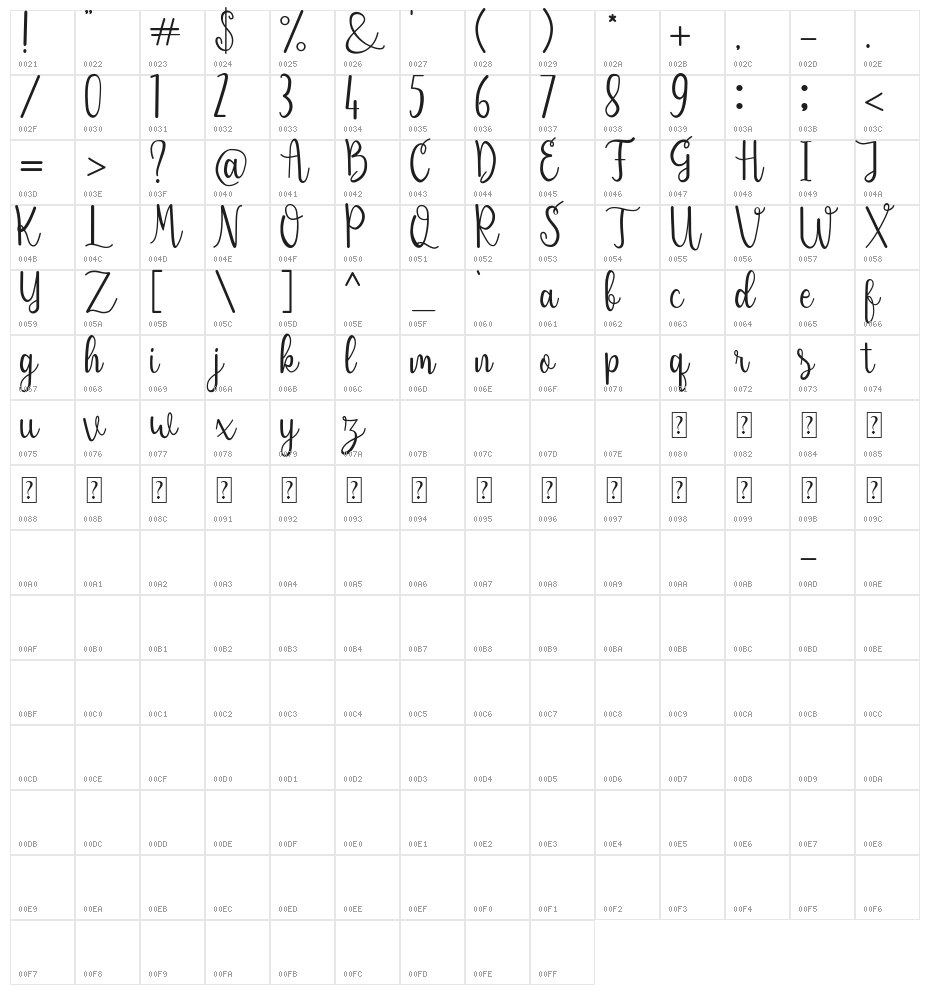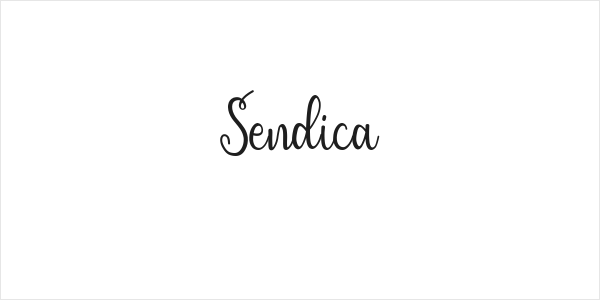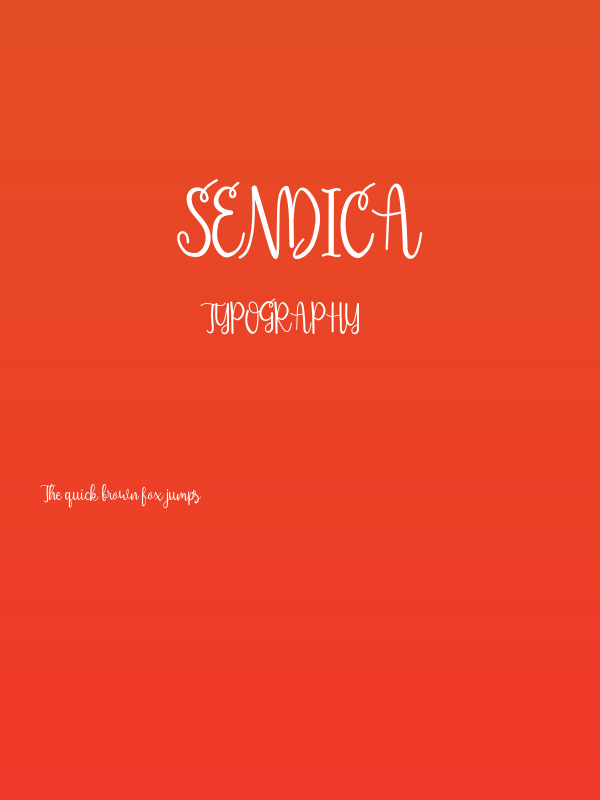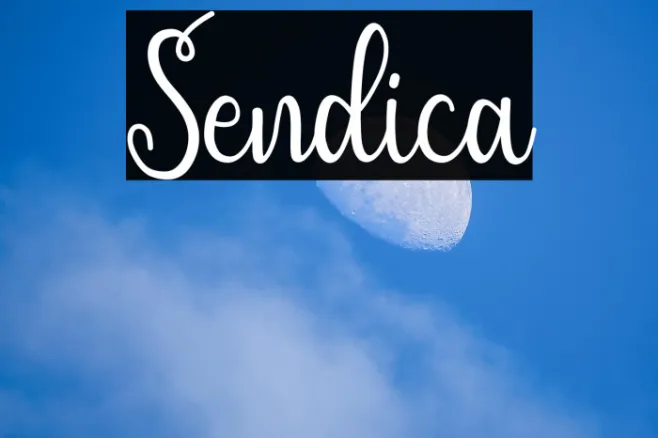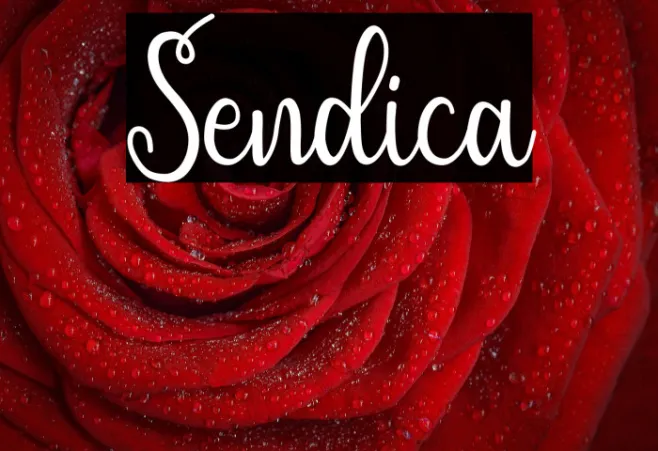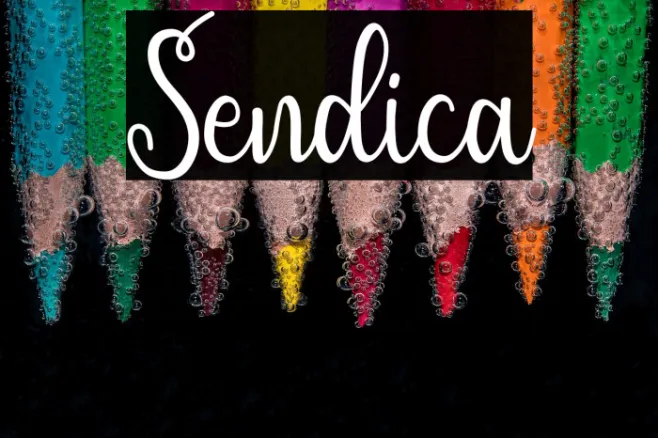
Sendica Font
Sendica Description
This font features a playful and whimsical script style with a handwritten appearance. The letters are characterized by their flowing, cursive forms and elegant loops, giving it a lively and dynamic feel. The uppercase letters are tall and slender, while the lowercase letters maintain a consistent flow, enhancing readability. The numerals are distinct, with a slight slant that complements the overall style. Special characters are creatively integrated, maintaining the font's unique aesthetic. This font is perfect for projects that require a personal touch, such as invitations, greeting cards, and artistic designs.
| Proposed Projects | Ideal for invitations, greeting cards, artistic designs, and personal branding. |